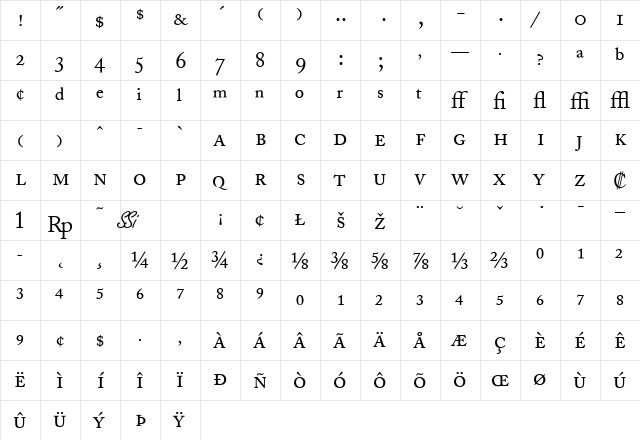
Caslon Pro SSi Regular
Design Context for Caslon Pro SSi Typeface
Caslon Pro SSi offers clean, dependable letterforms without strong stylistic allegiance, making it a practical choice for designers who need flexibility.